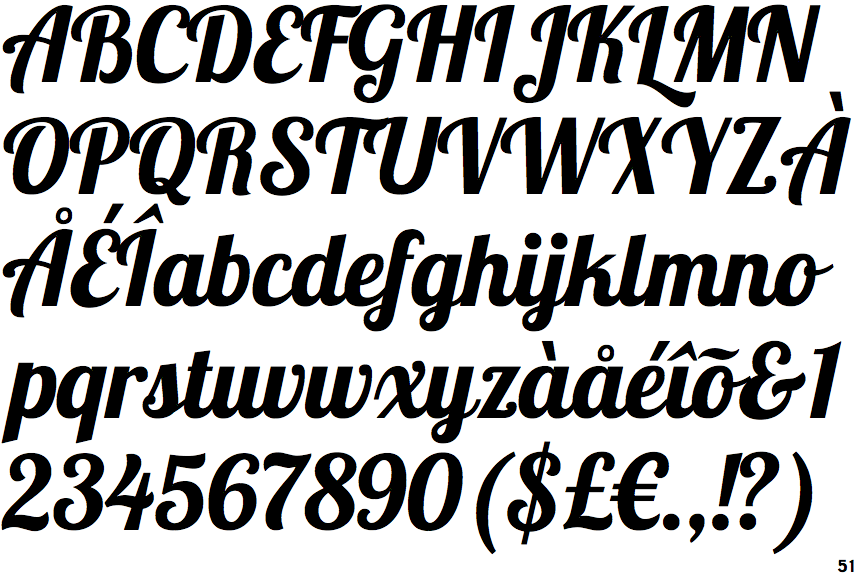
Fonts are one of the most important design choices to make when developing your brand identity. The best fonts leave you feeling like you’ve made an instant friend while the worst fonts are like a stranger who won’t leave you alone.
Luckily these days, you’re no longer limited to the fonts preloaded in Microsoft Word. There are thousands of good typefaces available to download online and a world of talented designers creating custom fonts as unique as the brands that use them. Not every font is a good one. In fact, there are a ton of bad typefaces out there that are boring, illegible and just plain ugly. This isn’t just our opinion: there are scientific reasons why some fonts look beautiful and others leave us cringing.
To help you find the perfect font for your project, we’re going to walk through the best fonts and worst fonts along with what makes them effective (or not).
Some of the best fonts
- Didot
- Bodoni
- Garamond
- Futura
- Helvetica
- Mrs Eaves
- Baskerville
- Akzidenz-Grotesk
- Clarendon
- Gill Sans
- Verdana
- Frutiger
- FF Din
- Proxima Nova
- Uni Sans
What makes a good font?
Even though they can look vastly different from each other, the best typefaces have a lot of the same things in common. These include:
- Even kerning
- Consistency
- Balance
- Legibility
Kerning
Kerning is the space between two characters. Too little space, and the font is unreadable because the letters are smushed together. Too much space, and it’s hard to tell whether the space is meant to separate letters or words. Uneven amount of space from letter to letter? It just looks awkward and ugly.
Futura and Helvetica are two examples of fonts that are very easy to read because of their even kerning–whether the letters are bold or skinny, their arrangement gives the reader the sense of clean spacing.
Consistency
Consistency means all the letters, numbers and any other characters used maintain the same look. If a font’s letter “A” has serifs, we expect its B to have serifs too, and so on from there.
Similarly, if a font has thick letters with soft, rounded corners but that style doesn’t extend to its numbers or punctuation, the font feels inconsistent and even incomplete.
Balanced fonts
A balanced blend of thick and thin, heavy and light, is an important component of a good font.
Didot is an excellent font that uses dramatic variations between thick and thin strokes while still managing to maintain balance. Bodoni is another famous example of a well-balanced font with its strong, solid vertical strokes and lighter arches and curves. Its serifs add a small bit of classy flair that also feels like counterweights keeping the letters upright.
Legible fonts
And lastly, a font must be legible. A font you can’t read is like an image that’s so busy you can’t tell what it’s supposed to be a picture of. Check whether a font’s legible by writing a variety of words in it, making sure you use every letter and a bunch of different letter combinations. Scale it up, then scale it down to see if there’s a size at which it becomes difficult to read. If you need text that small, choose a font that works at that size.
The fonts that have stood the test of time, like Garamond, have remained popular with designers because they’re legible in a variety of sizes, colors and compositions. Sans serifs are particularly good at maintaining legibility no matter the context: hence the endurance of fonts like Helvetica.
Some of the worst fonts
- Copperplate Gothic
- Times New Roman
- Trajan Pro
- Comic Sans
- Courier
- Papyrus
- Bonzai
- Neuland-Inline
- Brush Script
- Souvenir
- FF Blur
- Impact
- Trajan Pro
- Curlz
- Jokerman
- Lobster
- Bleeding Cowboys
- Arial
What makes a font bad?
—
There are lots of ways a font can be bad. Many popular fonts have been overused to exhaustion. Fonts that don’t mesh with our internal understanding of balance also read as ugly. Still more fonts don’t work because they have too much going on to be legible, while others have the opposite problem: there’s nothing unique about them, so they fail to stand out. And then there’s the fonts that try to look exotic but feel as authentic as Taco Bell’s menu. Let’s break down what the worst fonts look like in detail.
Overused fonts
Some fonts are so overused they’ve become generic. Some famous examples include Copperplate Gothic, Brush Script and Souvenir. Brush Script was hugely popular from the 1940s to the 1960s, to the point that it still feels stale and overused today. Similarly, Souvenir is permanently cemented in our minds as “70s ad font.”
Other overused, retro fonts you should probably stay away from? FF Blur and Trajan Pro. It’s not that they’re bad fonts per se. They’ve just been done so many times that they lose all appeal.
Imbalanced fonts